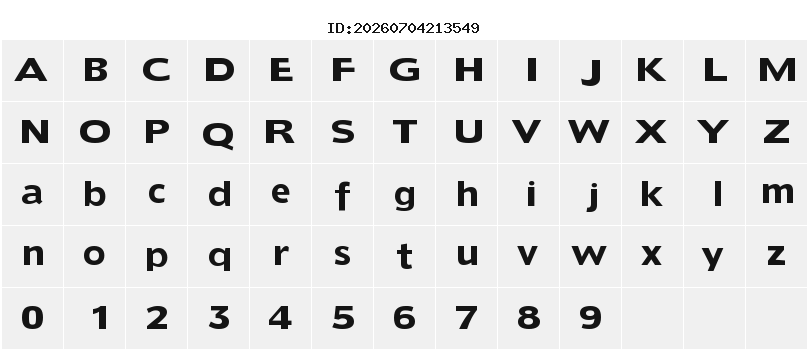
• Font Name: DoradoHeadline
• Full Font Name: DoradoHeadline
About DoradoHeadline.ttf
DoradoHeadline.ttf is a modern, elegant sans-serif font designed for ultimate readability and visual harmony. Perfect for branding, headlines, web design, and print materials.